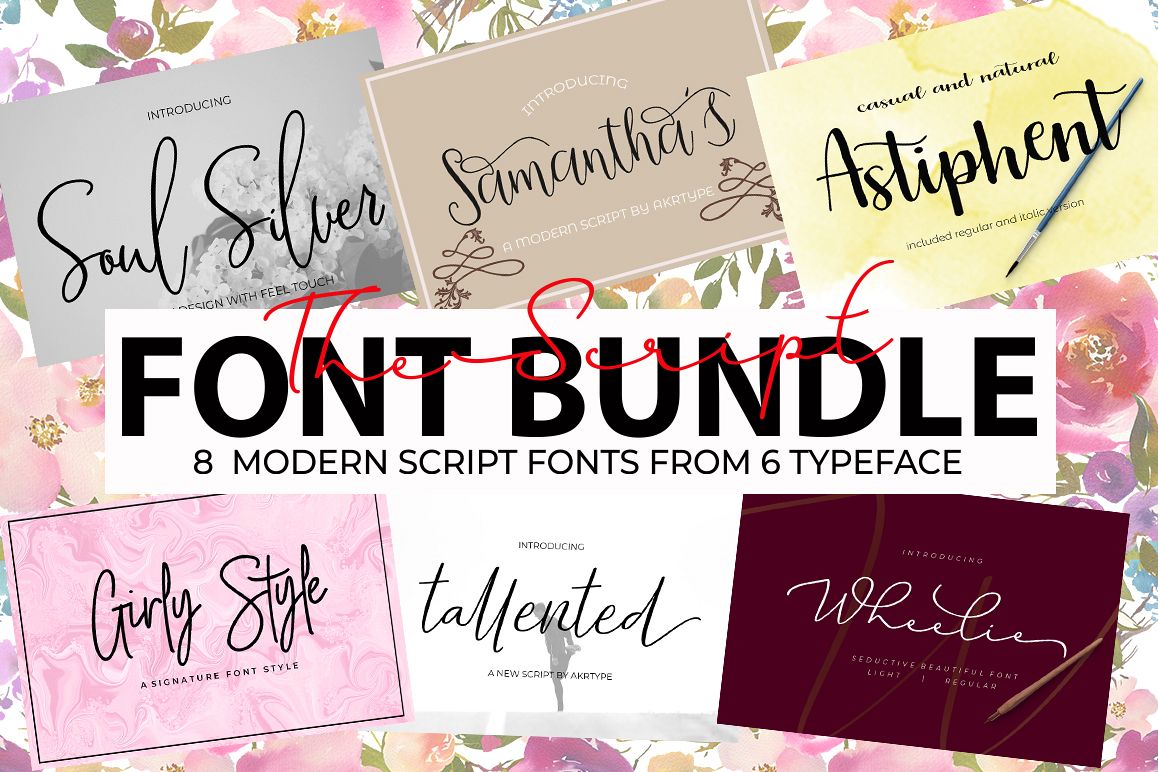
The Script Font Bundle
Introducing ... new bundle with 8 font of 6 typeface with elegant touch, seductive and modern calligraphy script.
1. Soul Silver script
2. Samantha's script ( regular and slant version )
3. Astiphent script ( regular and slant version )
4. Tallented script
5. Girly Style script
6. Wheelie script ( regular and light version )